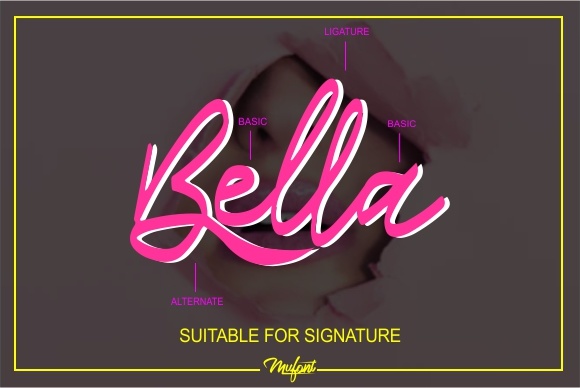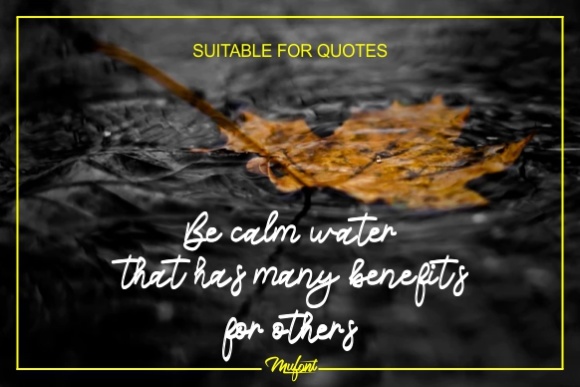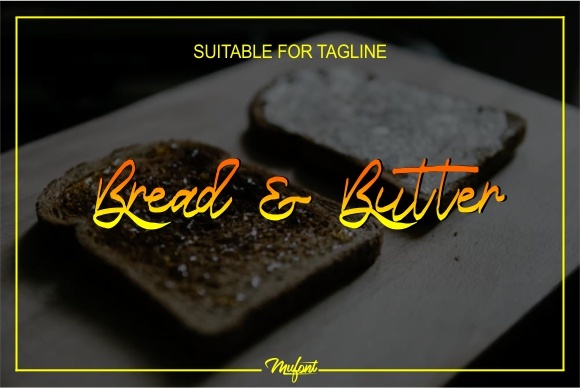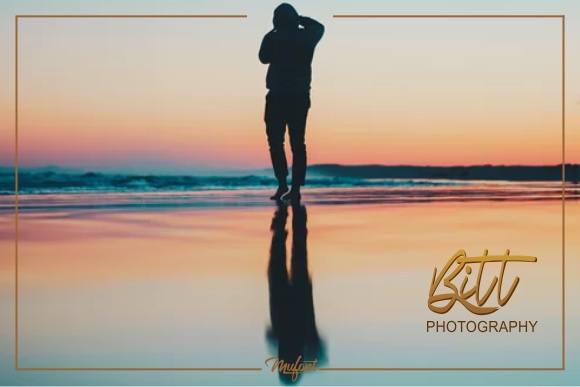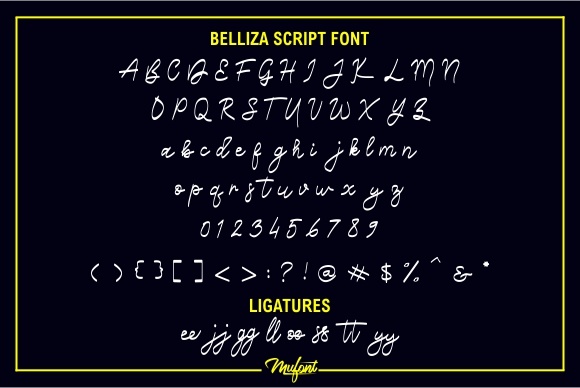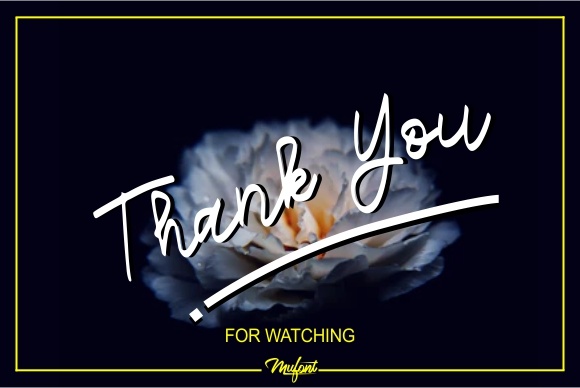
Belliza Font
About Belliza Font
The Belliza is an elegant, yet striking script font. It has an original handwriting style which makes each curve unique and original. It was created through a digital process using vector software. It’s perfect for giving your designs a striking look!